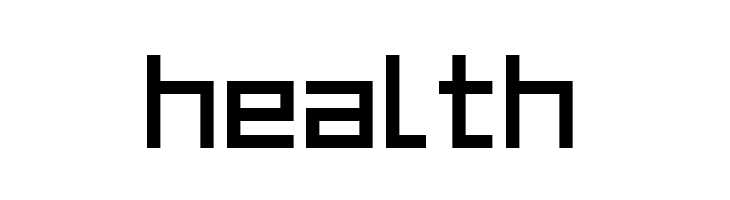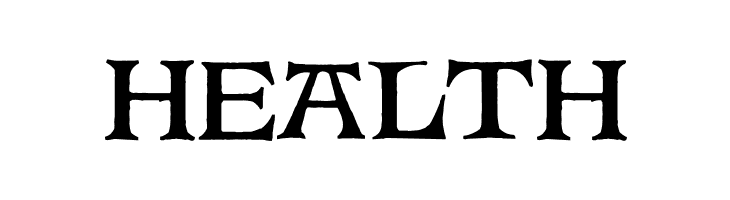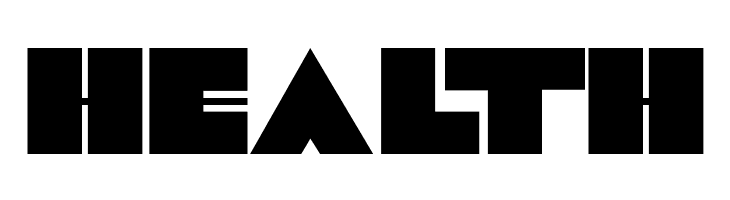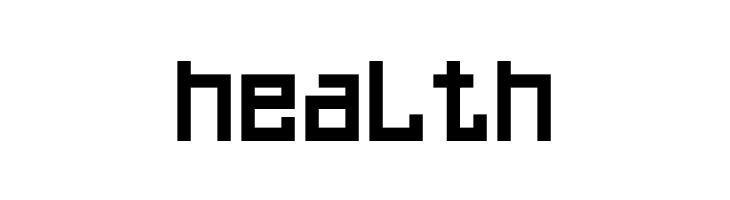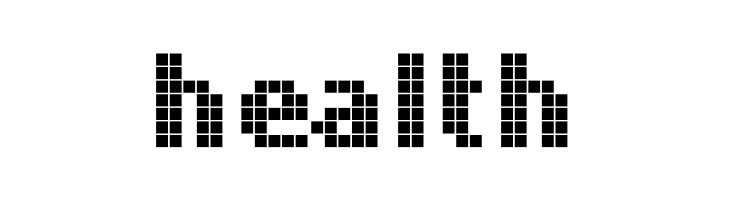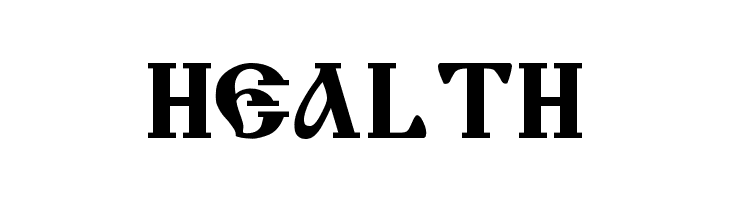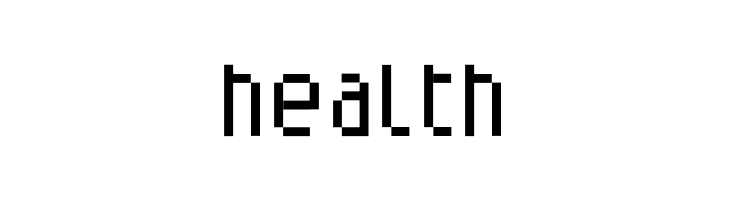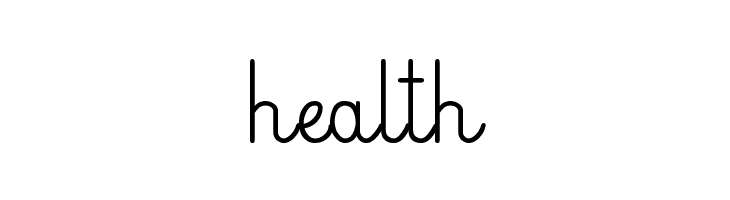
A pixelated, blocky font with a retro digital aesthetic.
A bold, angular serif font with a medieval flair and strong visual impact.
A bold, geometric font with a modern and structured design.
A bold, geometric font with a futuristic and dynamic style.
A bold, geometric font with a strong, block-like appearance and uniform thickness.
A bold, geometric font with a modern, digital aesthetic.
A pixelated, retro-style font with a blocky, geometric design.
A bold, angular serif font with a modern twist, perfect for impactful designs.
A pixelated, retro-style font with a blocky, digital appearance.
A playful, handwritten font with smooth, rounded strokes and a casual style.